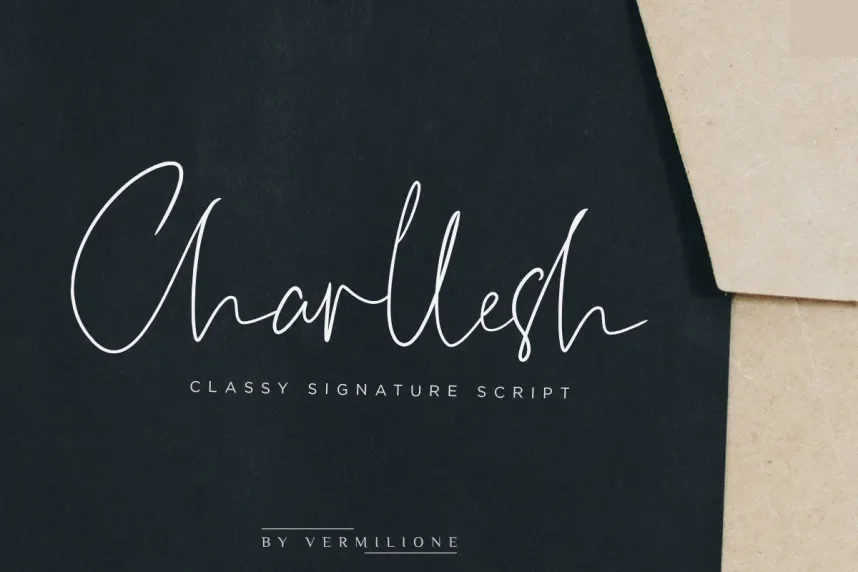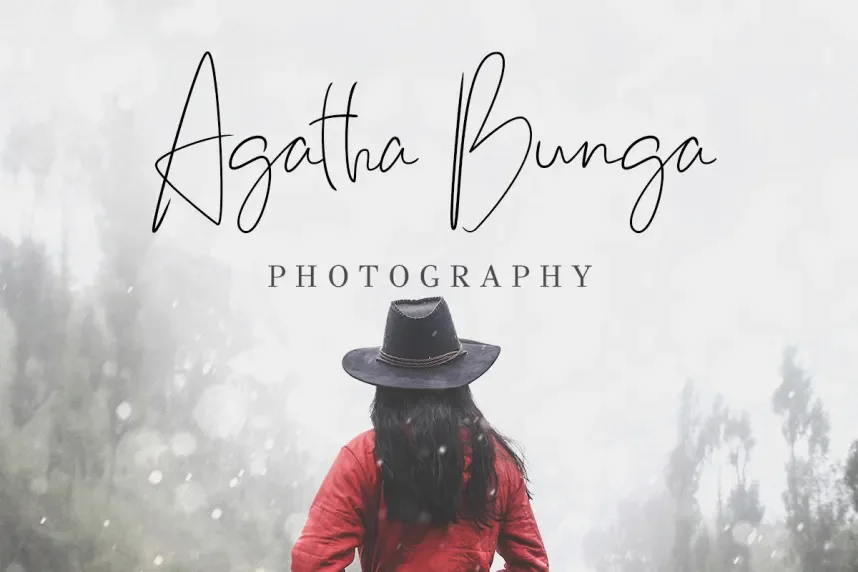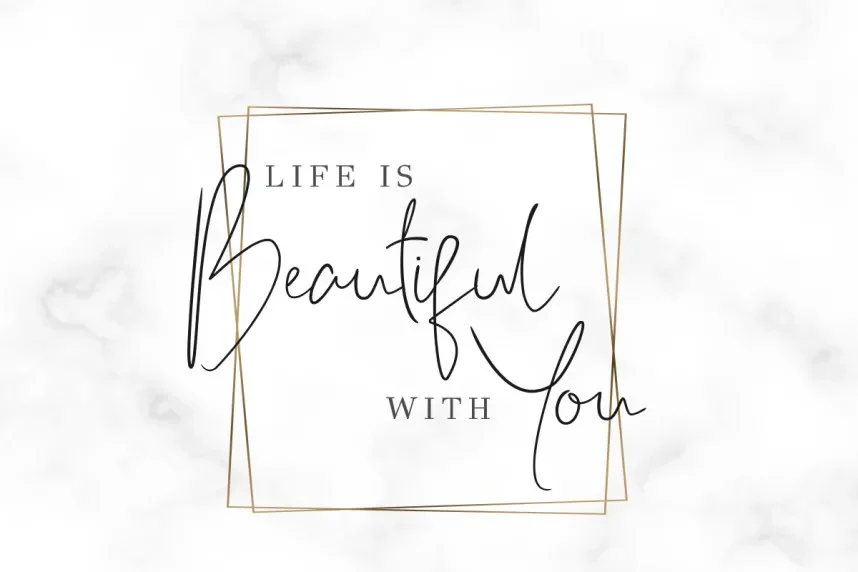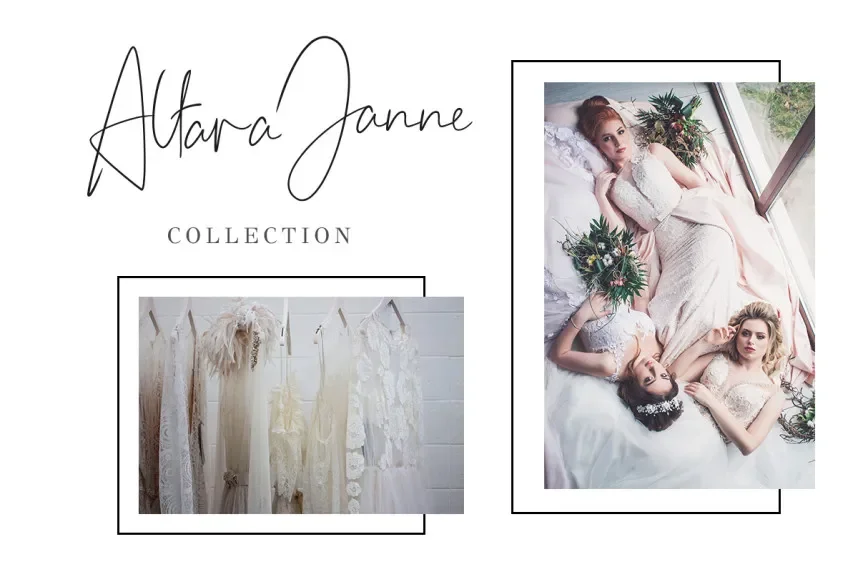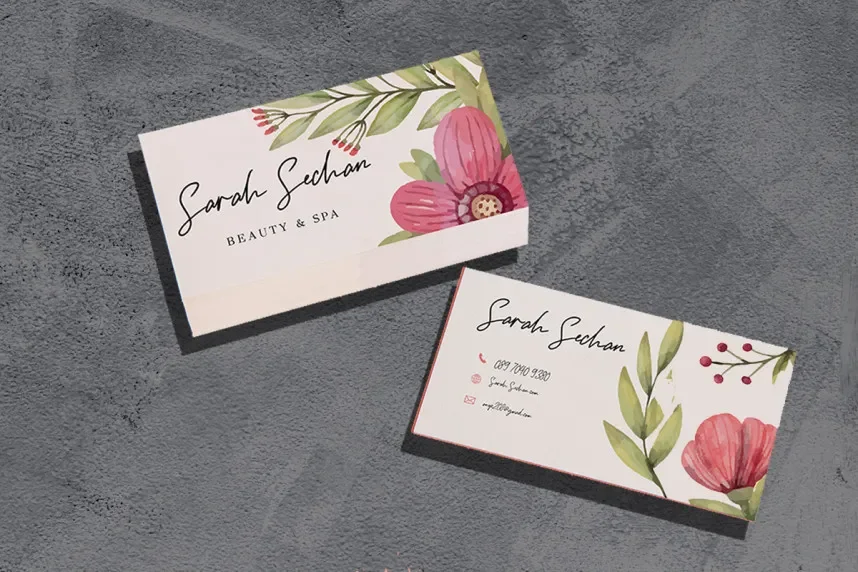
Charllesh Font helps designers add handwritten character without losing control in formal layouts. Many script fonts become unreadable in logos and invitations.
Charllesh is a script typeface with smooth curves, controlled stroke contrast, and connected letterforms. It avoids excessive swashes, improving clarity in short text.